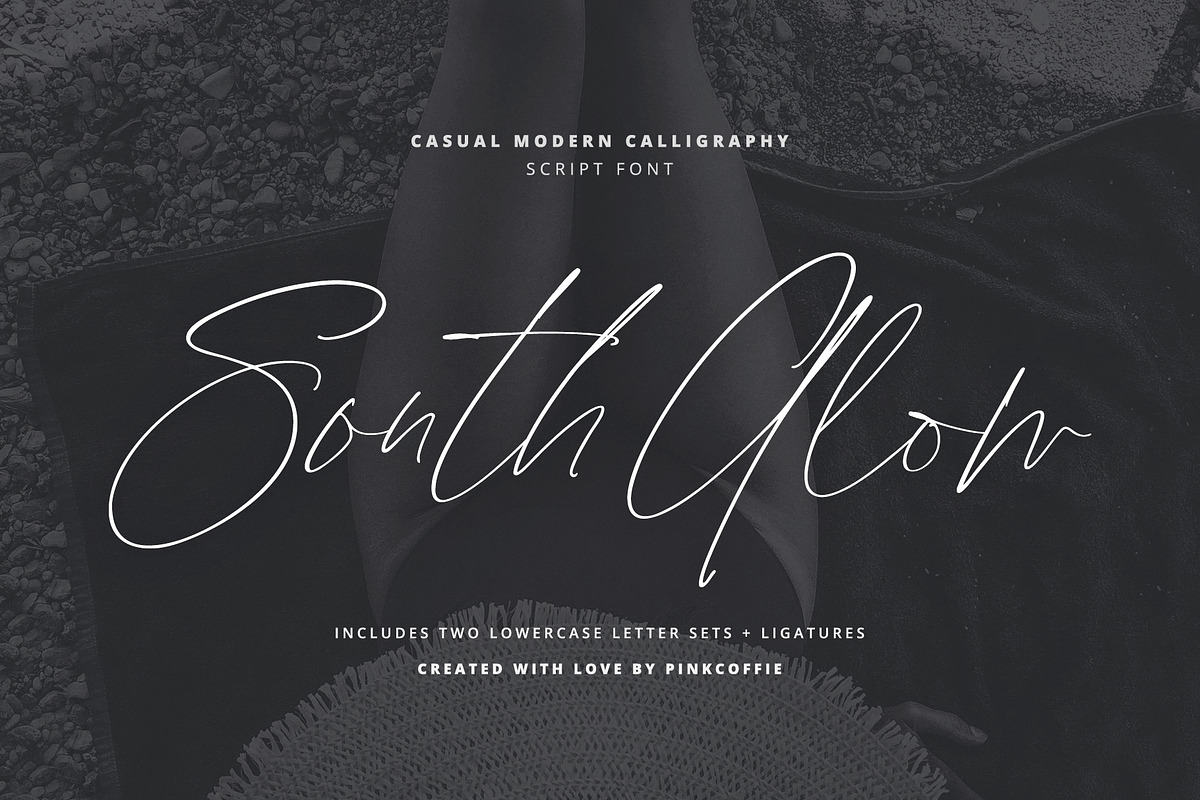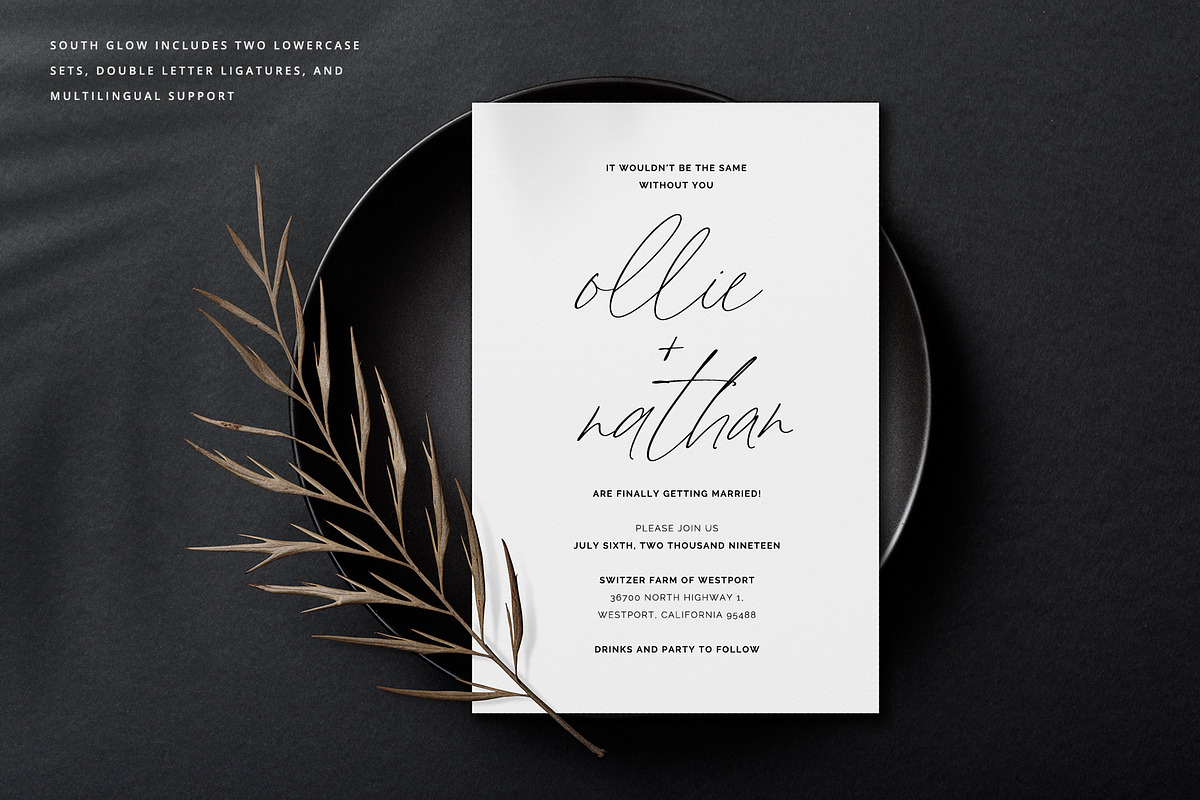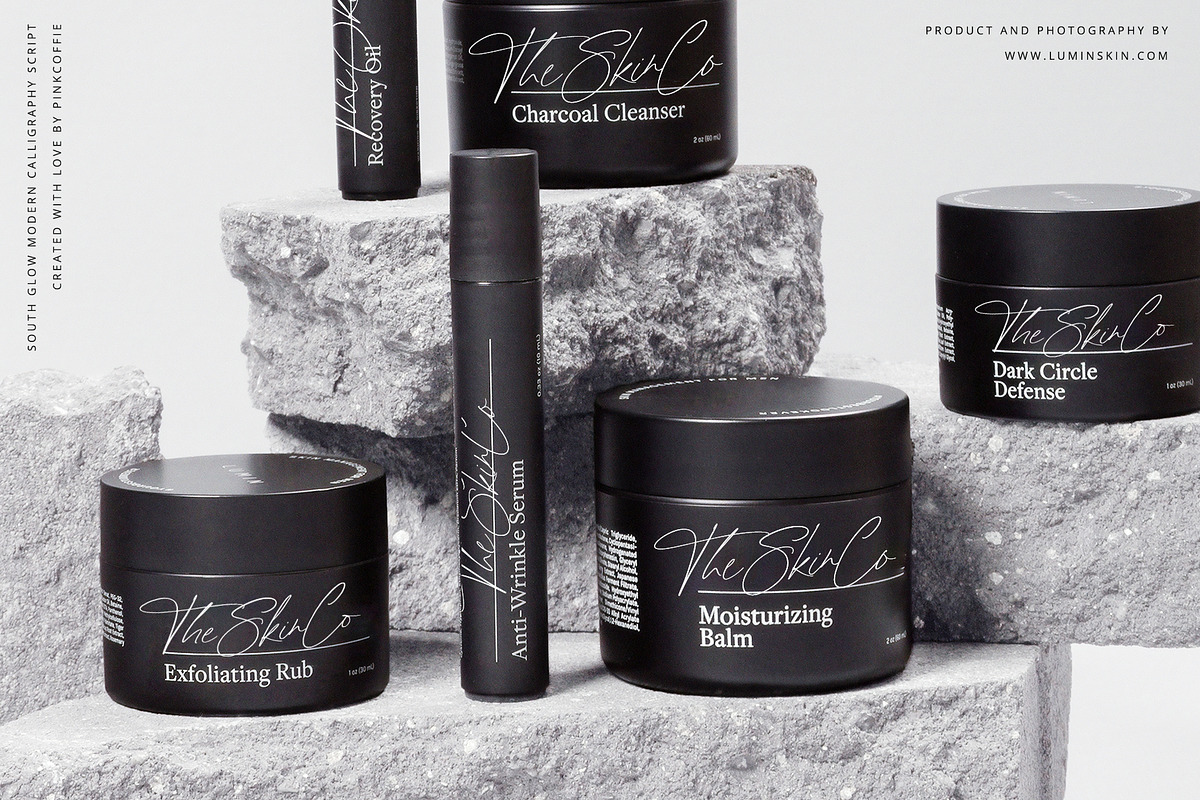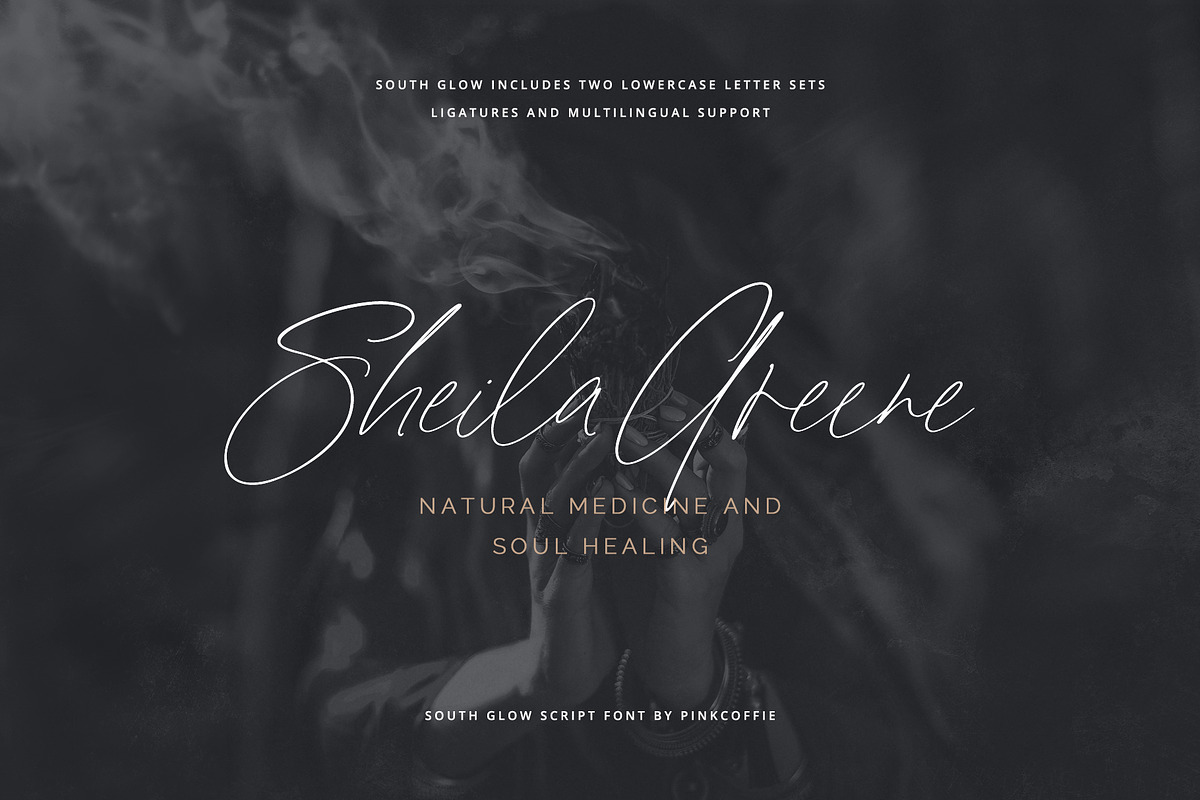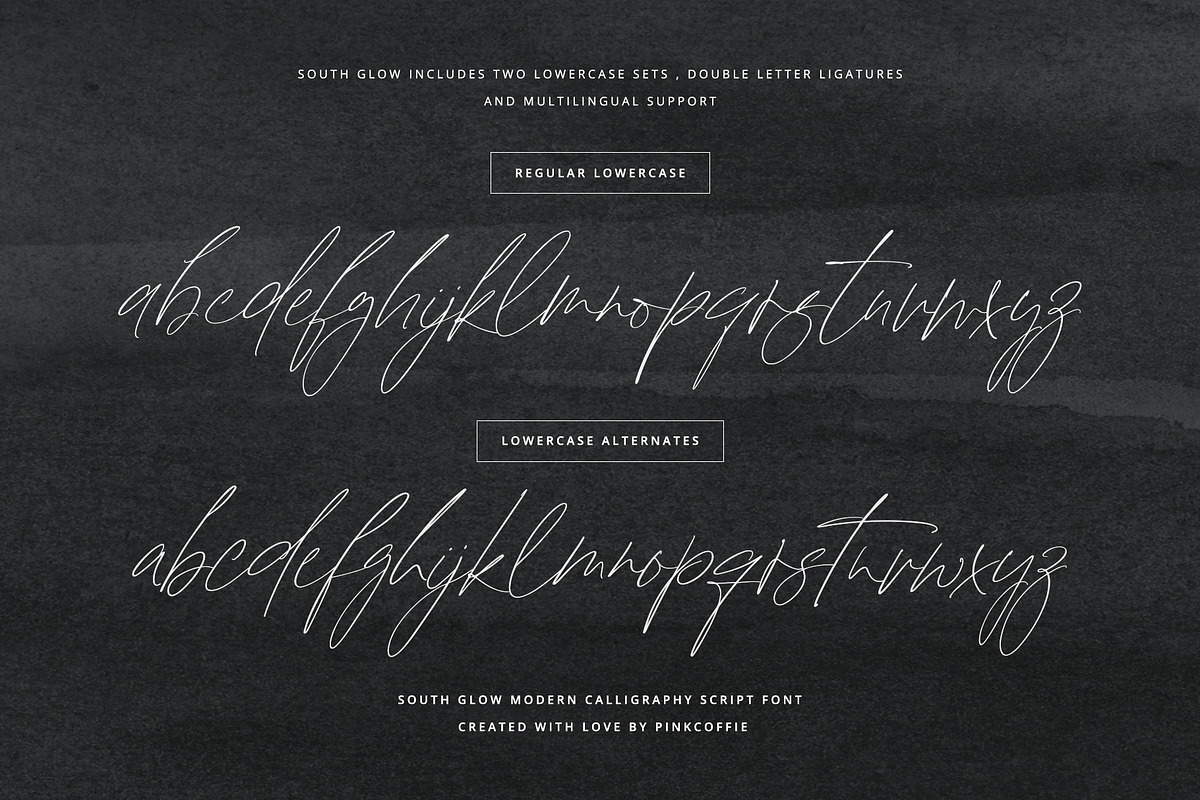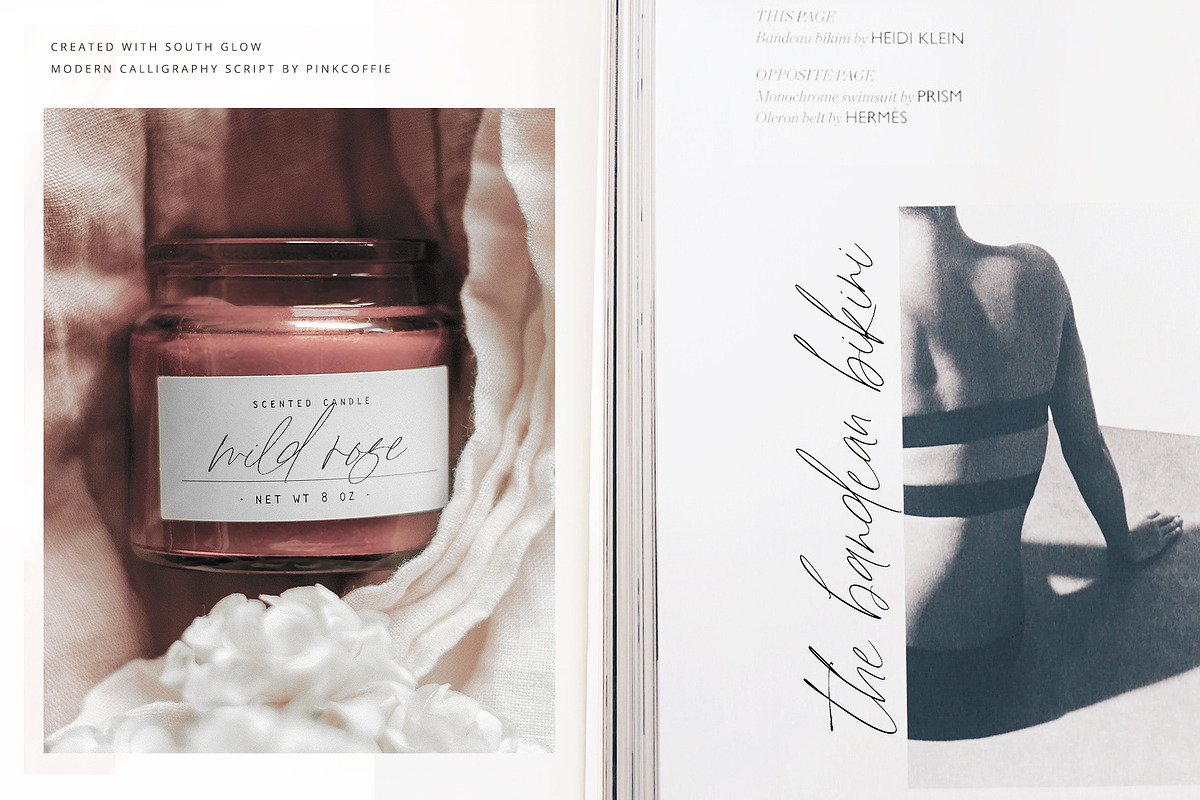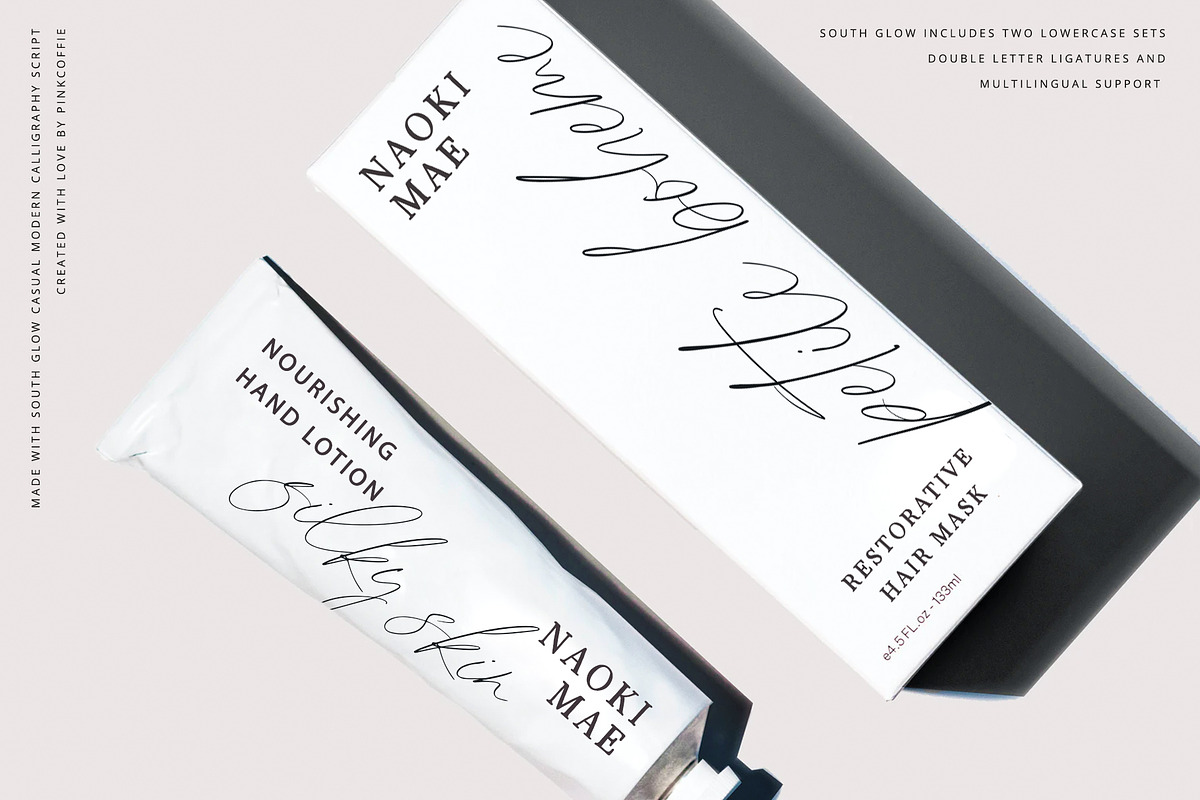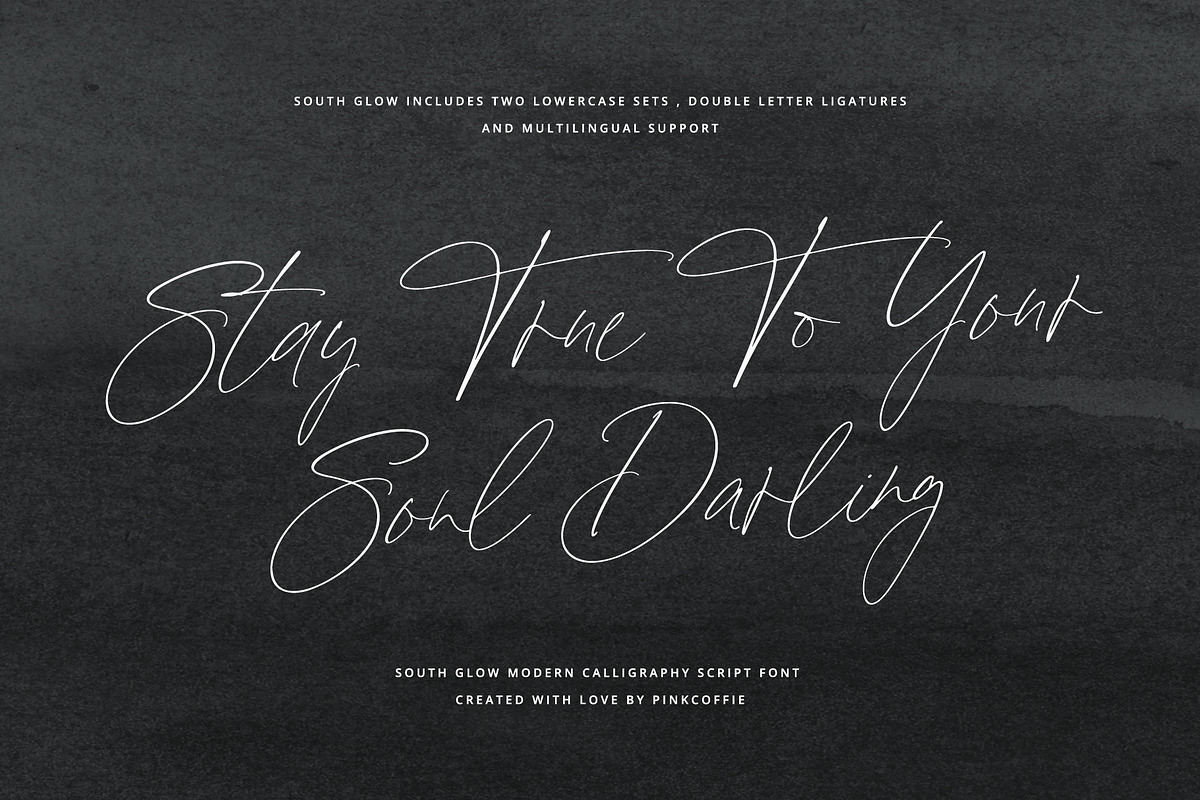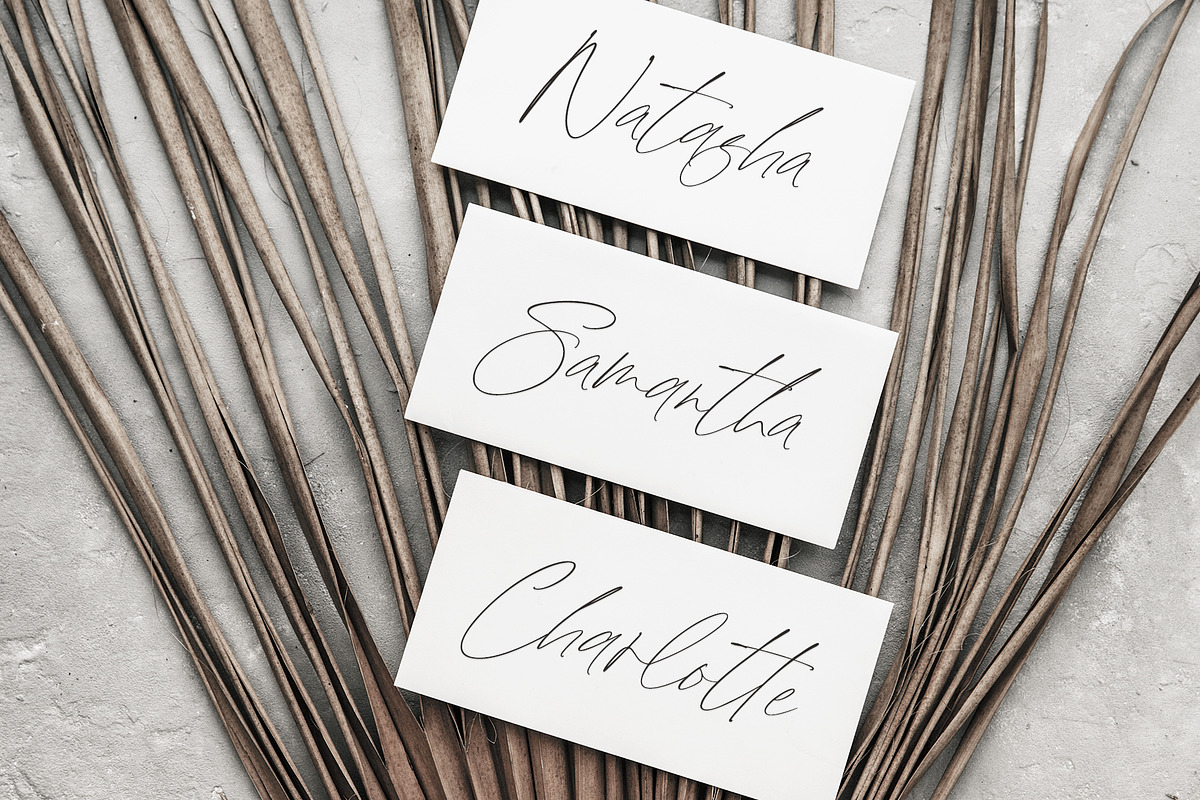
South Glow | Casual Chic Calligraphy
Say hello to South Glow, a casual-chic modern calligraphy script font inspired by cosmetic packaging, down-to-earth + feminine branding, planners & girly stationery.
The script includes a set of uppercase characters, numerals, symbols, two lowercase letter sets, a full set of double letter ligatures, and as always, multilingual support.
South Glow is versatile enough for both web and print and can be used in a variety of projects such as stationery, packaging, apparel, wedding stationery, prints, quotes, social media graphics, planners, greeting cards, logos, branding, and much much more.
As all my fonts, South Glow includes multilingual support and the following multi-lingual characters: